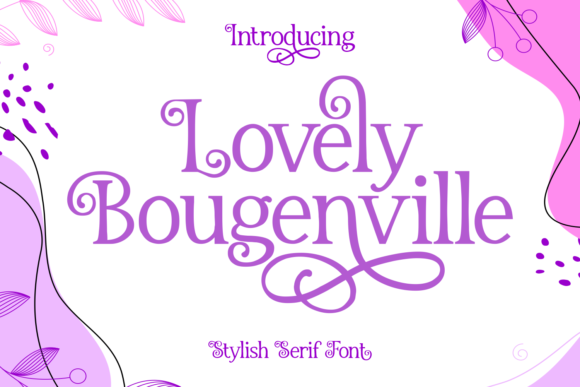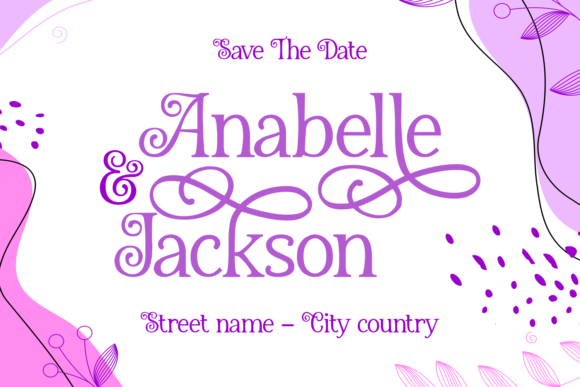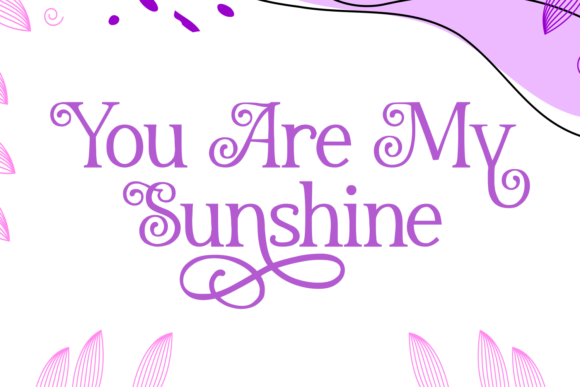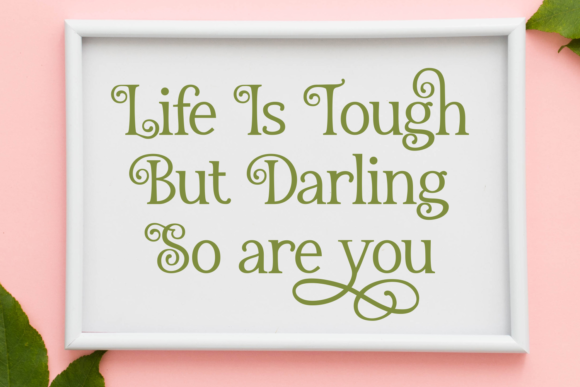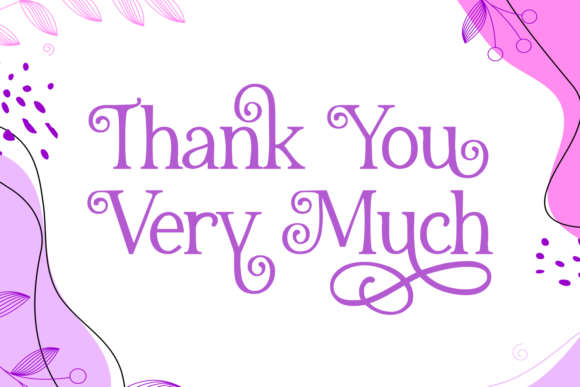
Lovely Bougenville Font
About Lovely Bougenville Font
Lovely Bougenville is a cute and casual handwritten font with an incredibly friendly feel. It features gorgeous swashes and ligatures that make this script incredibly versatile.
It will elevate a wide range of design projects to the highest level, be it branding, headings, wedding designs, invitations, signatures, logos, labels, and much more!
This font is PUA encoded which means you can access all of the amazing glyphs and swashes with ease! It also features a wealth of special features including alternate glyphs and ligatures.